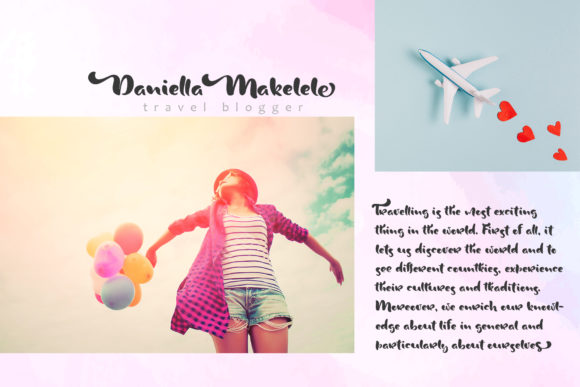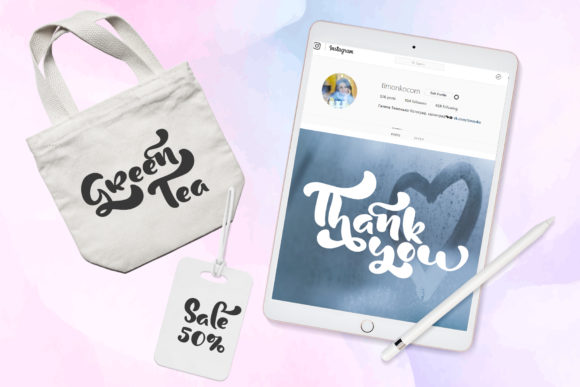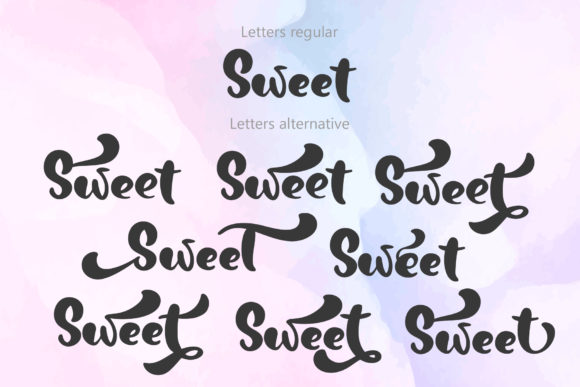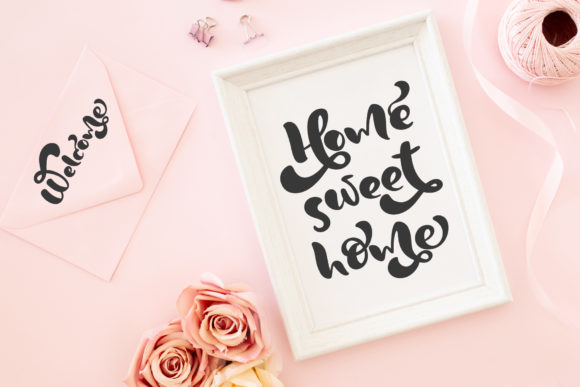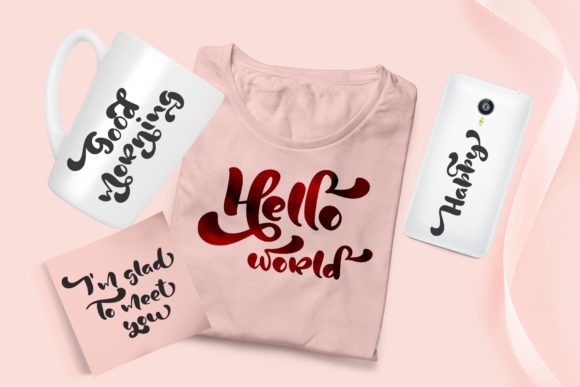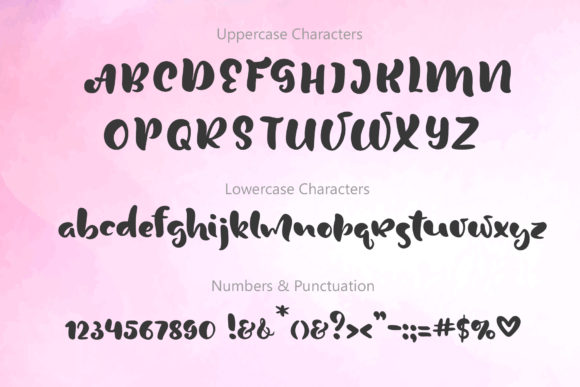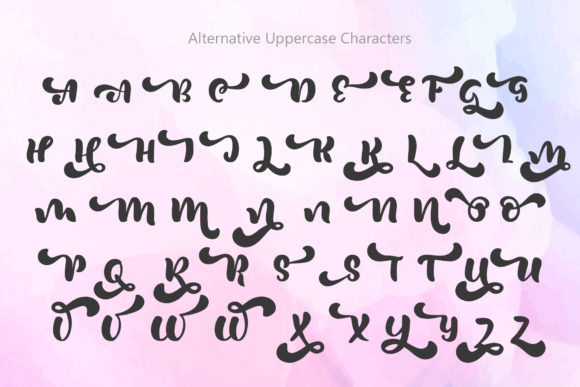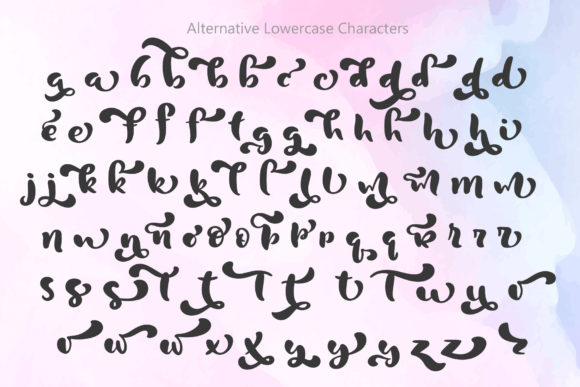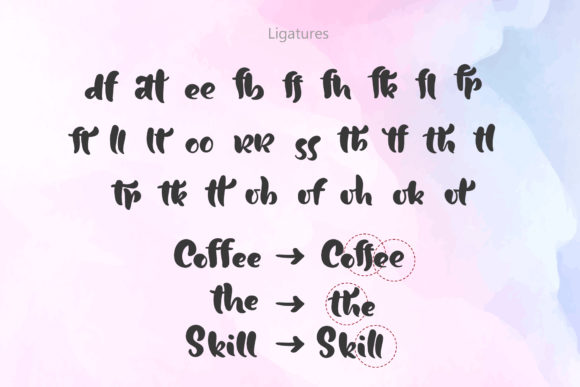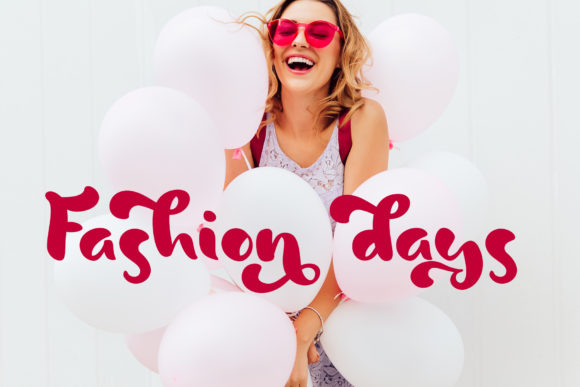
HomeScript FontsSweet Dreams Font Script Fonts Sweet Dreams Font FacebookXPinterestWhatsApp Sweet Dreams Font Poster 2 Sweet Dreams Font Poster 3 Sweet Dreams Font Poster 4 Sweet Dreams Font Poster 5 Sweet Dreams Font Poster 6 Sweet Dreams Font Poster 7 Sweet Dreams Font Poster 8 Sweet Dreams Font Poster 9 Sweet Dreams Font Poster 10 Sweet Dreams Font Poster 11 Sweet Dreams Font Poster 12 About Sweet Dreams Font Sweet Dreams is a fun and deliciously sweet handwritten font with lots of adorable charm! DOWNLOAD NOW People also explored Quattro Tempi Abrianna Font Parma Font Say Hello Font Mastury Font Fruit Candy Font Aurix Font Dexurita Realistic Mock-ups on Vintage Background 316 0 TagsSweet Dreams Font Previous articleGlarious FontNext articleDelvin Font LEAVE A REPLY Cancel reply Comment: Please enter your comment! Name:* Please enter your name here Email:* You have entered an incorrect email address! Please enter your email address here Website: Save my name, email, and website in this browser for the next time I comment. Personal Use Free Aseline Personal Use Free Read more about this font Deco Neue Wilde Personal Use Free Read more about this font Potato Pancakes Personal Use Free Read more about this font Hashira Mt Personal Use Free Read more about this font BLOG Using Fonts in Digital Marketing: Tips to Strengthen Your Brand Identity In the realm of digital marketing, every visual element plays a crucial role in shaping a brand's identity, and fonts are no exception. The... Free vs Paid Fonts: Why Investing in Premium Fonts Is Worth It How to Cut Any Font on Cricut: Convert a Font to SVG (Free) To increase your work productivity, choose the most readable fonts.